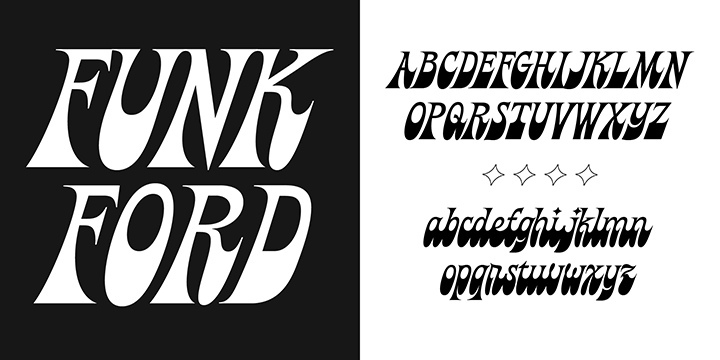
Funkford Font
Funkford Font is perfect for retro music branding, groovy event posters, disco-themed marketing, vintage entertainment venues, nostalgic product packaging, and funky fashion campaigns. This vibrant typeface excels in nightclub promotions, retro gaming interfaces, throwback advertising designs, and any application where seventies funk and soul music aesthetics create infectious energy and nostalgic appeal.
What makes Funkford Font so exciting is its incredible ability to capture the infectious groove and vibrant spirit of funk music through dynamic, rhythm-inspired letterforms. The font features bold curves, playful proportions, and energetic character shapes that seem to dance with musical rhythm. Its groovy personality instantly transports viewers back to the golden age of funk while maintaining contemporary usability and professional quality.
Funkford Font comes in a groovy family including Light, Regular, Medium, Bold, and Heavy weights. Each style features complete uppercase and lowercase character sets, musical symbols, funky numerals, and rhythmic punctuation marks. The font family also includes swash alternates, disco ligatures, and groovy decorative elements that allow designers to create truly authentic funk-inspired typographic compositions.
The font's funky character makes it particularly effective for music entertainment, retro fashion brands, dance venues, and cultural celebration organizations. Its excellent legibility ensures that Funkford Font maintains clarity while delivering maximum groove impact and maintaining its distinctive musical personality. The font's ability to evoke joy and cultural nostalgia makes it an essential tool for any project seeking to celebrate the timeless appeal of funk music and connect with audiences through the universal language of rhythm and soul.